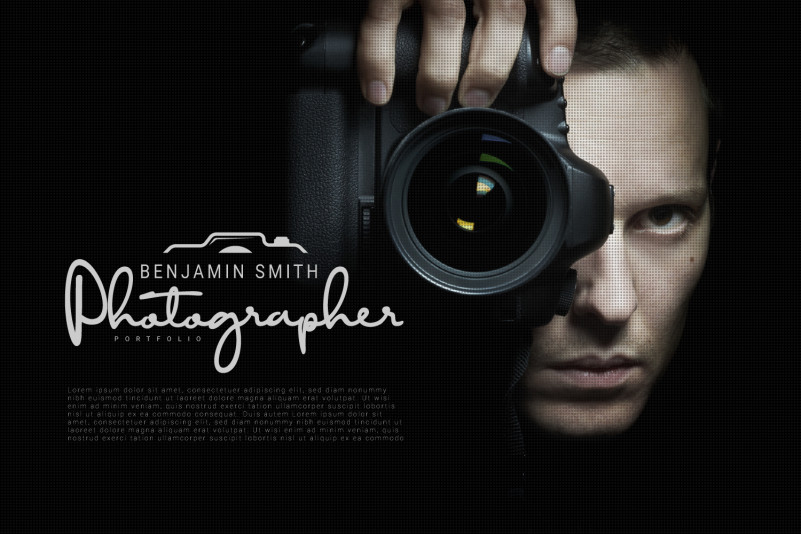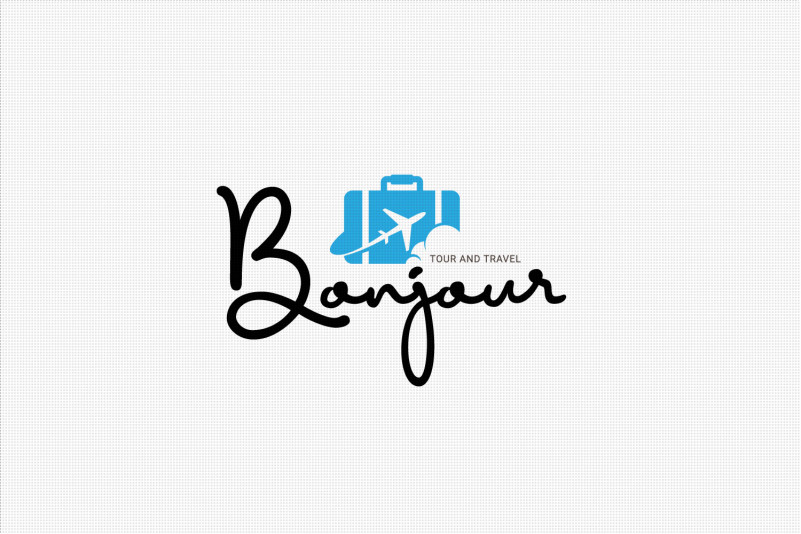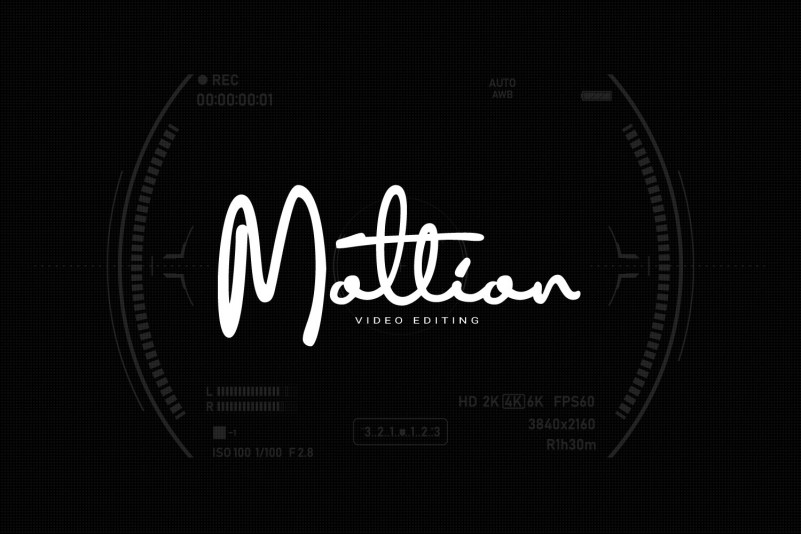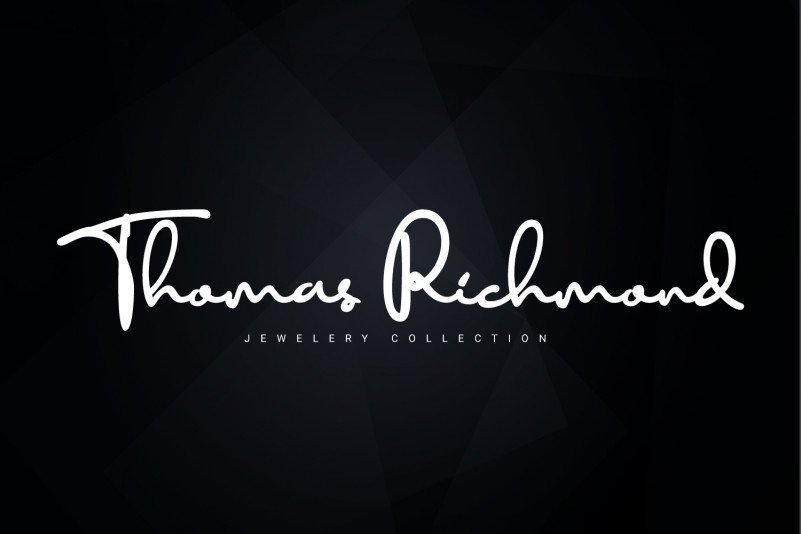
Diamant handwriting Font
Diamant Font is an upright handwritten font, which looks like a thick pen stroke.
Form orientation is generally flowing horizontally, this is a reflection of composure in writing, we set the rhythm of each glyph so that the combination of high and low letters is very soft, try it, whatever you type with this font looks very calm.
Activate the OpenType feature, because this font is equipped with ligatures (liga), Stylistic(salt), Contextual(calt) and initial alternates. We present all of this so that your writing is automatically setup, we also provide access to all alternates (aalt) features, this allows you to choose the glyph you like manually.